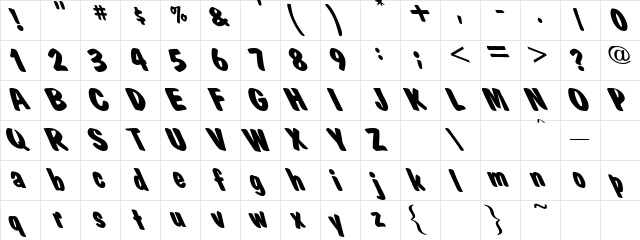
Market Bold Left Regular
Design Context for Market Bold Left Typeface
Market Bold Left is a composed and adaptable typeface that performs quietly and consistently across a wide range of design contexts. The heavy weight commands attention and anchors typographic hierarchies.